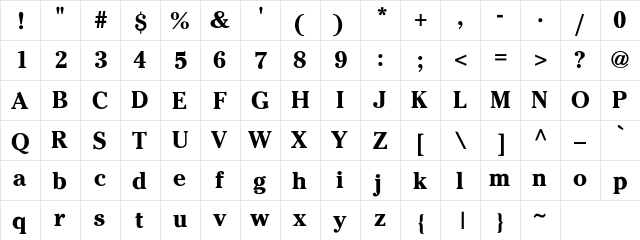
Charlie Bold Regular
Design Context for Charlie Bold Typeface
Charlie Bold is a composed and adaptable typeface that performs quietly and consistently across a wide range of design contexts. Its bold stroke weight gives it real presence on the page.
Pro Tip: Use Charlie Bold in both headline and body roles to test its range before committing to a single application.